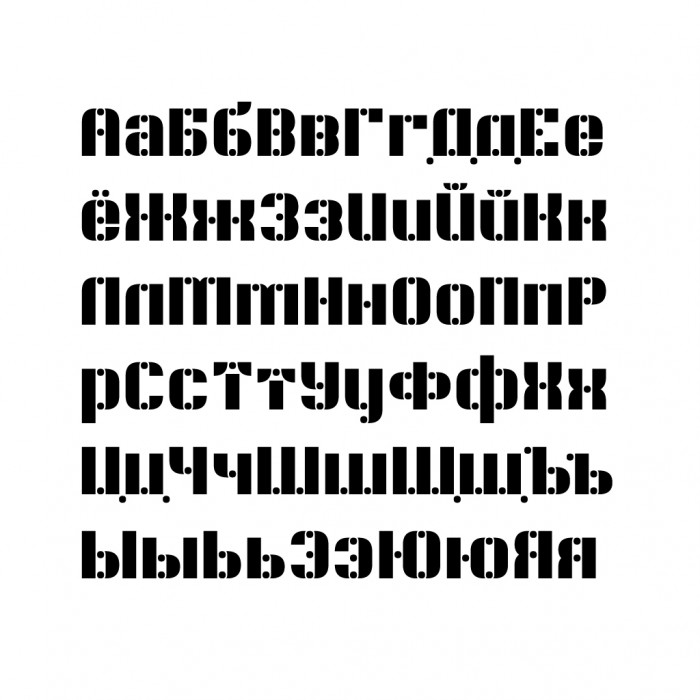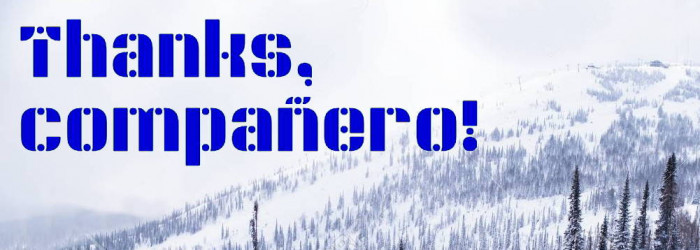
Nice and simple desing, great demo pic. (The original Polish title is Cyberiada. The correct spelling of the author's name is: Stanisław Lem.)
Love how the Q turned out :-)
Thank you Elmoyenique for being an inspiration for many of us. Our project is now officially complete:
>¡MADRE MÍA!< >W-O-W!< I am absolutely flashed! Flushed and proud ... Hugely grateful at the same time ... I don't know what to say to this. What is before my eyes is not my poor "ziberia", it has grown enormously and has become a beautiful young font. Now it is complete, beautiful, flawless! (When I look at it, I hardly recognize it, how well it has grown, I've not seen it for a long time). Thank you very much, Zhalgas! Sorry, compañero, but now I can't say enough to thank you for this enormous gift. I'm in love with it!
@architaraz: You recreated this font very well and even added Cyrillic to it. But I have a couple of questions about the Cyrillic alphabet. Namely, to the letters П Ш Щ, since they are made in the Bulgarian manner (black), while the other letters are not. It seems to me that this is not too correct, I can accept such variants of the forms for Л and И Й,
as others in such a design do not.
@elmoyenique: Perhaps we should also cooperate in this way?
Huh, thanks mate. This font was finished something like 5 or 6 years ago :) Didn't really look into it that thoroughly. For some reason the Цц are ok but others are in another style. Updated the Cyrillics. No changes made to Чч cause I don't think there's a big problem with it as it is now.